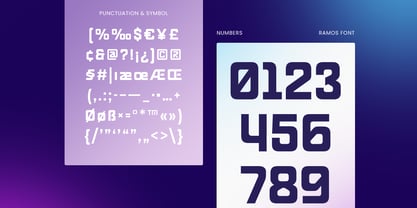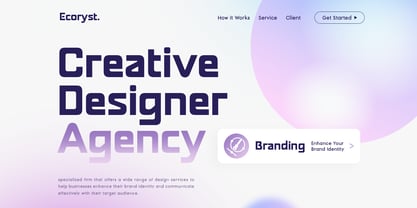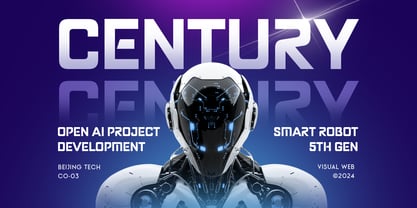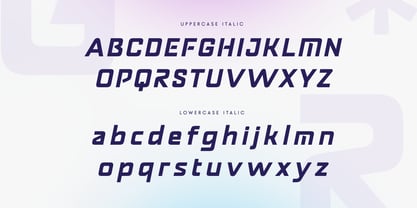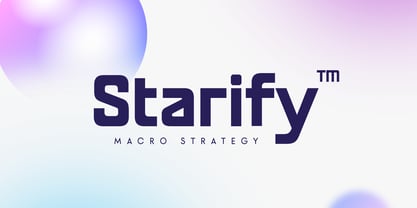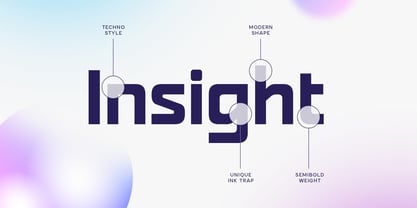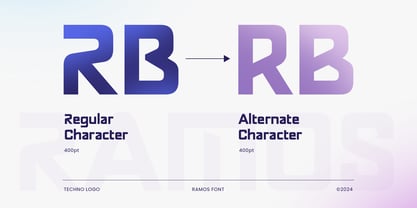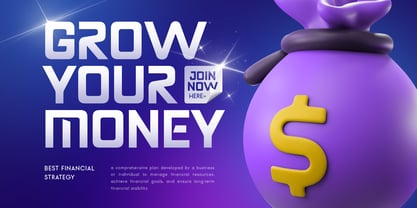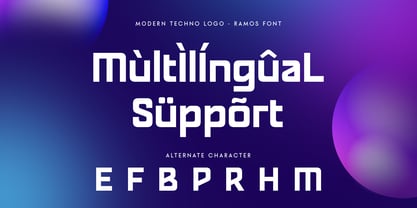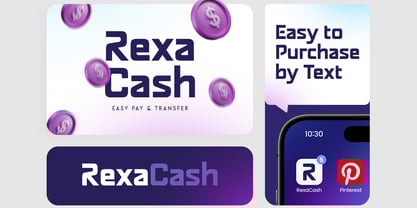
Ramos SS
by Sensatype Studio
Ramos - Modern Techno Logo Font
Ramos is a modern techno logo font crafted for brands and projects that thrive on innovation and forward-thinking design. Its clean, sharp edges and futuristic style make it ideal for technology-focused businesses, digital products, and creative projects that want to convey modernity and cutting-edge appeal. Whether used for logos, app interfaces, or website headers, Ramos gives your brand an ultra-modern look.
The font's sleek lines and geometric design are perfect for minimalistic branding, ensuring that your logo stands out in a competitive market. Ramos captures the essence of progress and technological advancement, making it suitable for industries like IT, electronics, and futuristic design projects.
With its alternative characters and multilingual support, Ramos provides flexibility for designers to experiment with their visual identity. This font's blend of modern aesthetics and technical precision makes it an essential choice for brands seeking a bold, contemporary look.
Ramos Modern Techno Logo Font Features:
• Futuristic Alternative Characters Ready
• Unique Punctuation, Number, and Symbol
• Uppercase and Lowercase
• Multilingual Support
• Opentype Features
Designers: Zamroni Hamzah
Foundry: Sensatype Studio